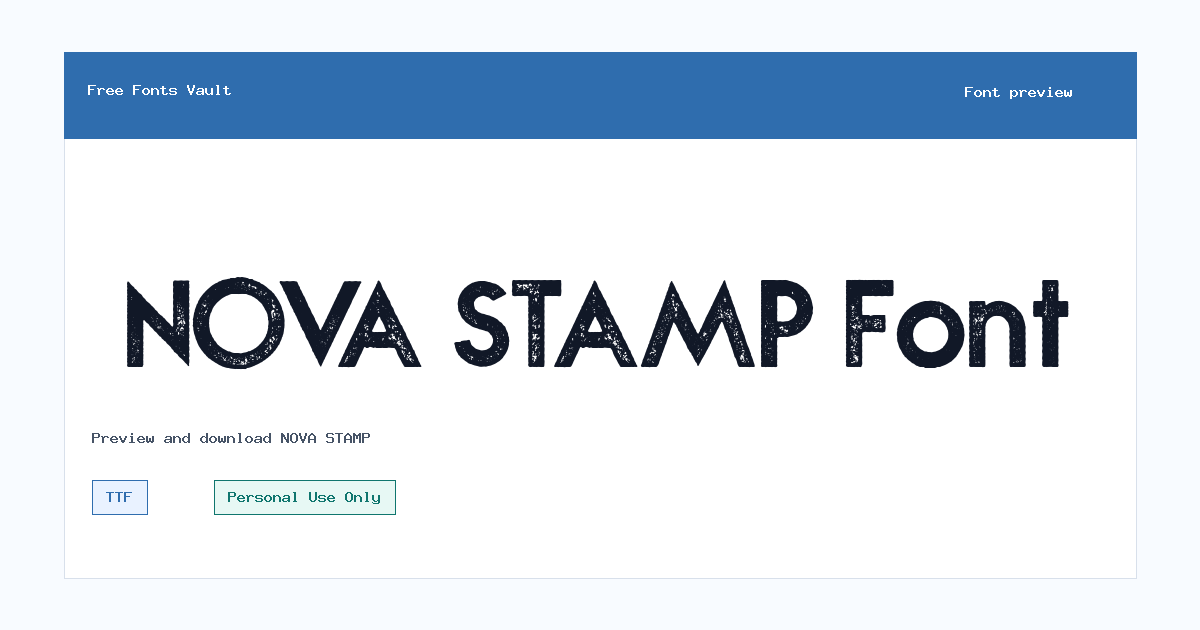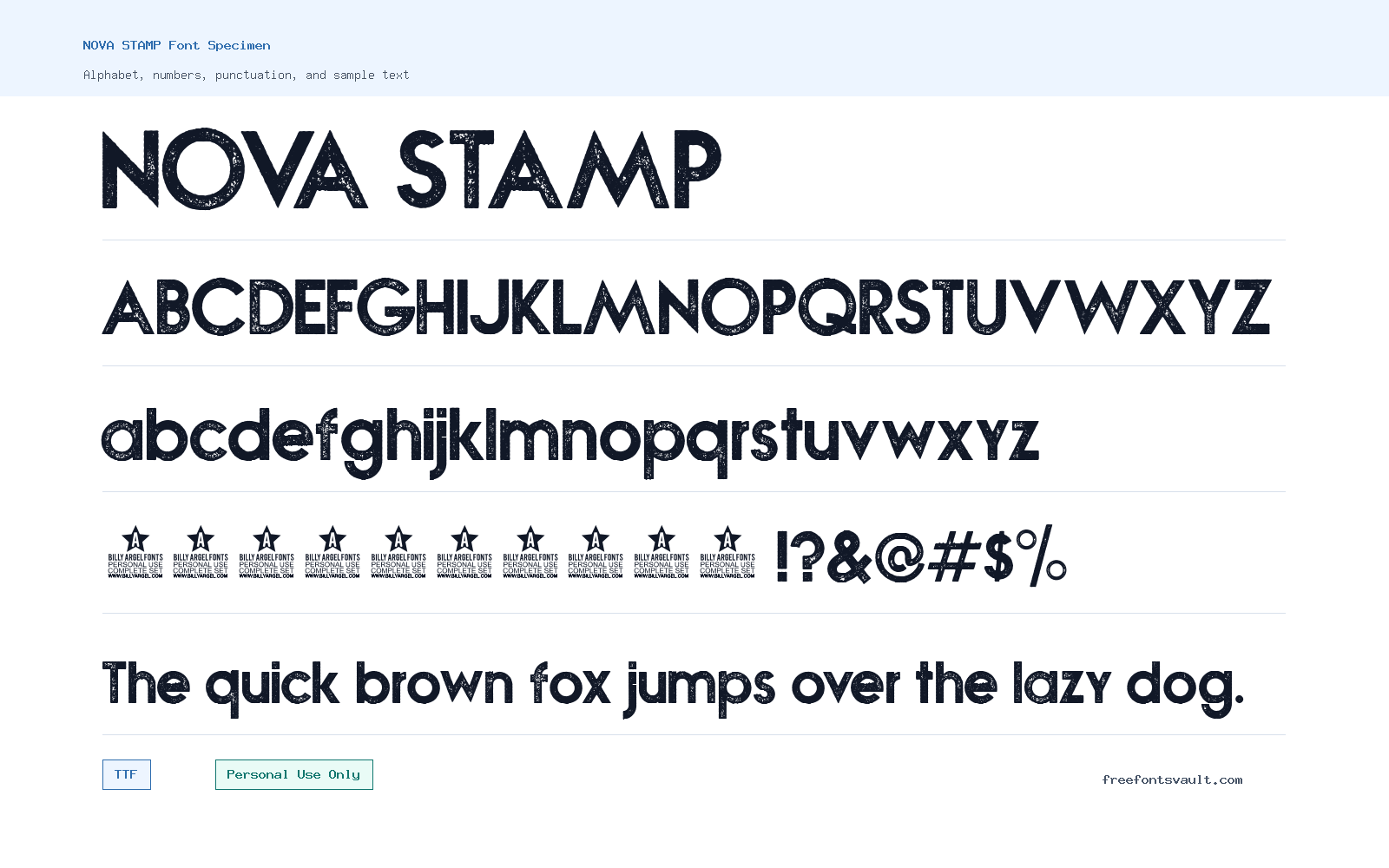
NOVA STAMP
NOVA STAMP font.
NOVA STAMP is a bold display font from Billy Argel, built for short words, large headlines, and preview testing where a strong stamped look is wanted.
About NOVA STAMP
NOVA STAMP works best as a display face rather than a long-reading text font. Its name and all-caps family styling point toward a stamp-inspired design, so it is most useful when you need a rough, marked, label-like headline rather than a clean body typeface. Try it with short text first: brand mockups, poster titles, badges, packaging concepts, social graphics, and bold wordmarks.
- Bold display style suited to short headlines, labels, posters, badges, and graphic titles.
- Poster titles, album-style graphics, quote images, and bold social media text.
- Badges, labels, packaging mockups, logo drafts, and stamp-style display lettering.
NOVA STAMP is credited to Billy Argel, with Billy Argel also listed as the foundry.
Use NOVA STAMP at larger sizes where its display character can be seen clearly. Avoid using it for paragraphs, small captions, legal text, or interface copy. If your design needs readability, set only the key word or title in NOVA STAMP and use a plain companion font for the supporting text.
Who designed NOVA STAMP?
The font is credited to Billy Argel.
What is NOVA STAMP best used for?
Use it for short display text such as posters, labels, badge designs, packaging mockups, and bold title graphics.